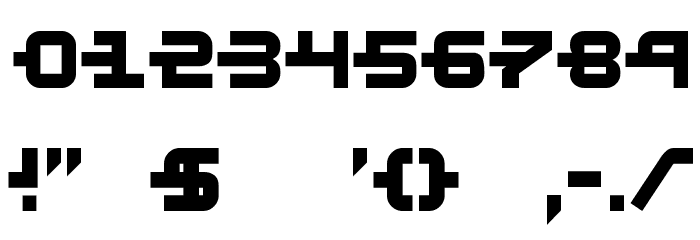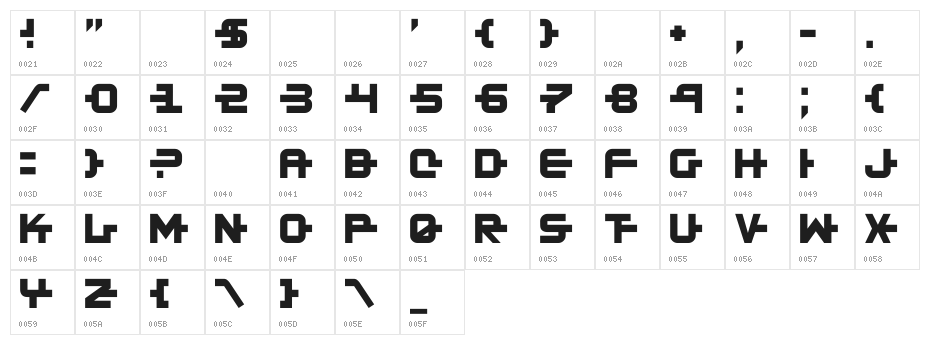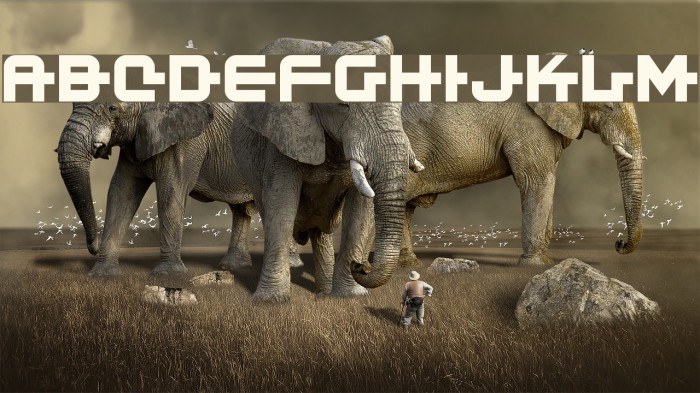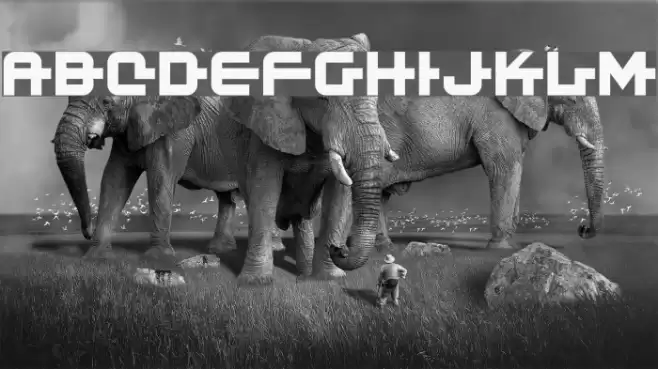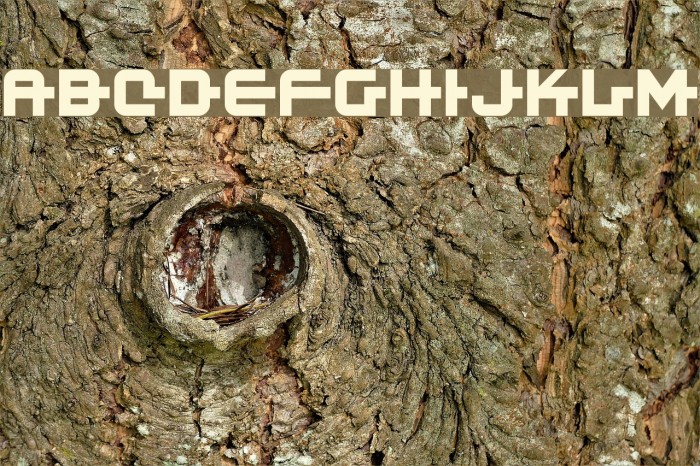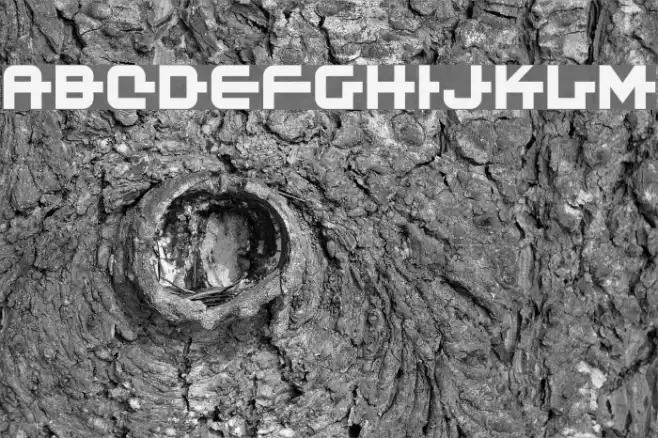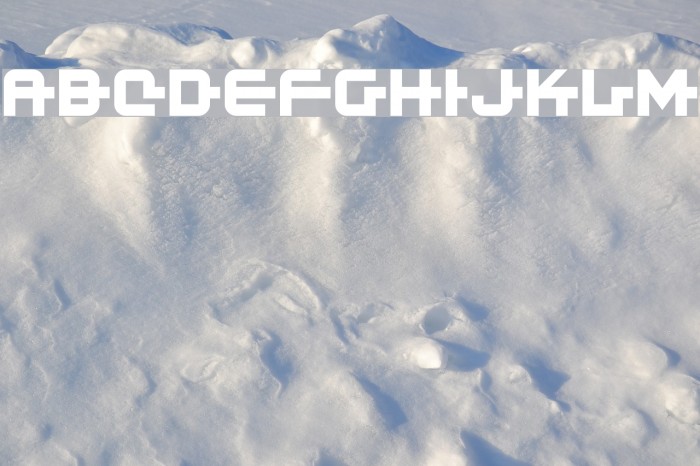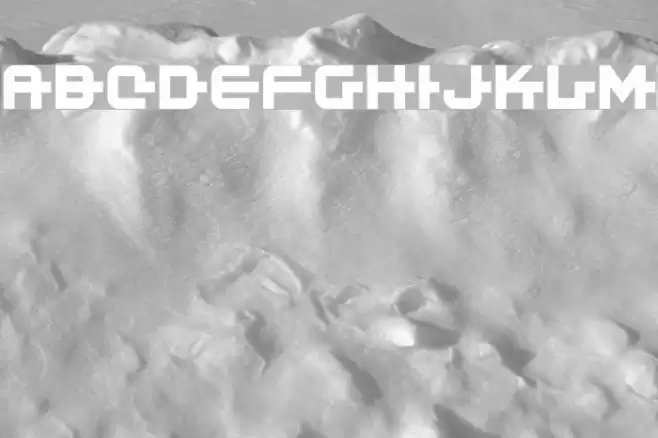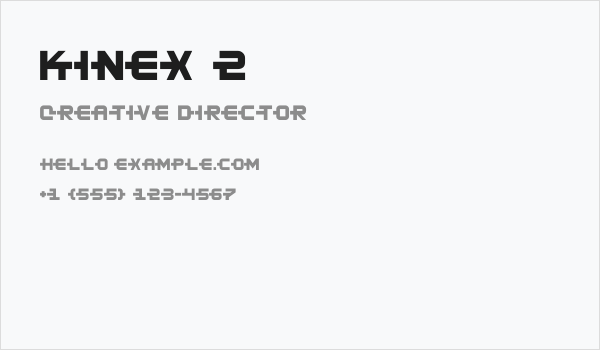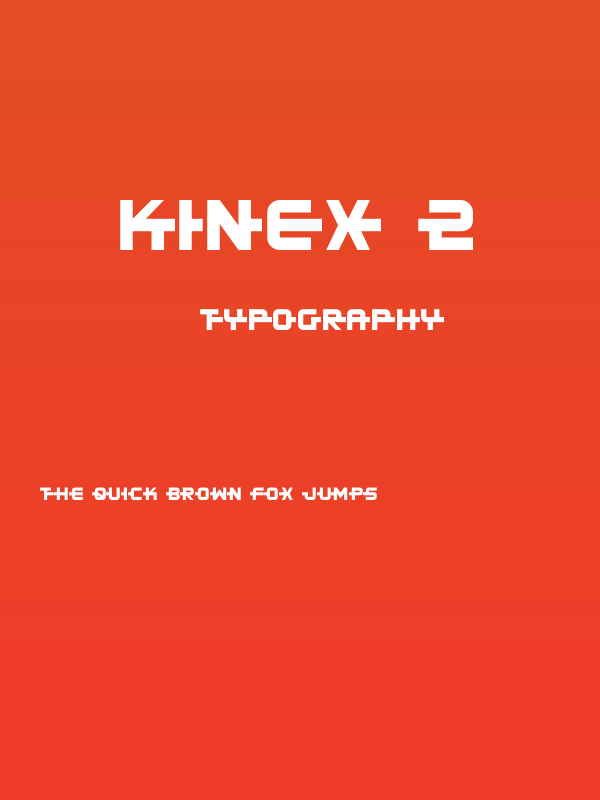
Kinex 2 Font
Kinex 2 Description
This font features a bold, geometric design with a futuristic and industrial feel. The characters are constructed with thick, block-like strokes, creating a strong visual impact. The angular edges and uniform stroke width contribute to its modern and mechanical appearance. The uppercase and lowercase letters maintain a consistent style, with some characters incorporating unique cutouts and angles that enhance the font's distinctiveness. The numerals and special characters follow the same design principles, ensuring a cohesive look across all glyphs. This font is ideal for projects that require a bold and assertive typeface.
| Proposed Projects | Ideal for technology branding, video game titles, sci-fi posters, and industrial-themed designs. |